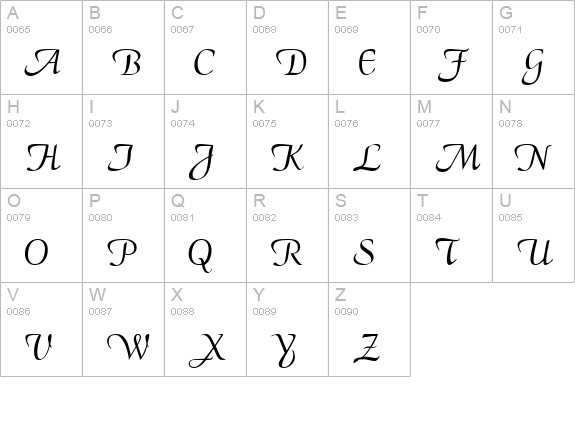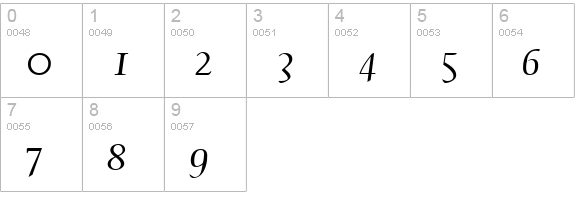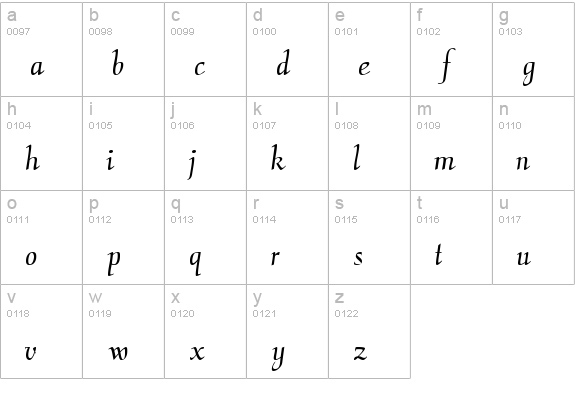
AriaScriptSSK Font Details
AriaScriptSSK font is a stunning typeface that exudes elegance and sophistication. Its graceful and flowing script style adds a touch of charm to any design project. With its beautiful swashes and intricate details, AriaScriptSSK is perfect for creating invitations, wedding stationery, logos, and more. What makes AriaScriptSSK even more appealing is that it is available for free download at FontsMarket.com. This means you can easily access this exquisite font and enhance your creations without any cost. Don't miss out on the opportunity to add a touch of class to your designs with the beautiful AriaScriptSSK font. Download it now and let your creativity shine!